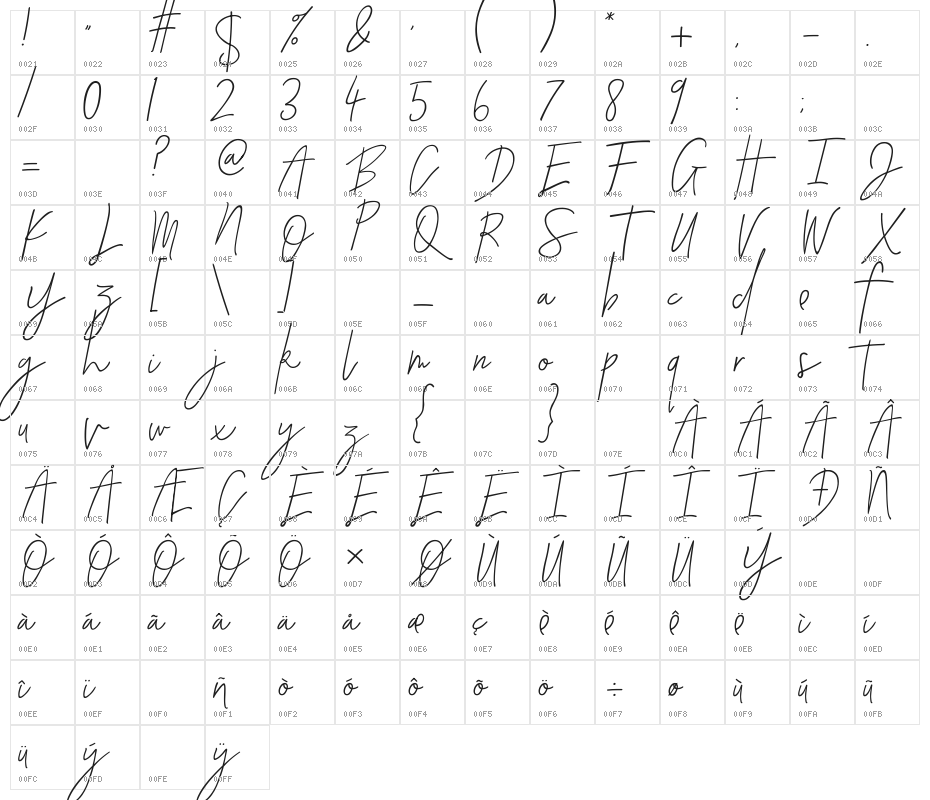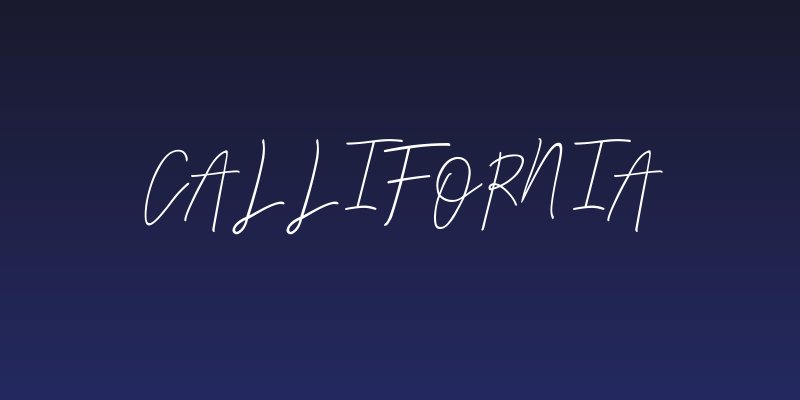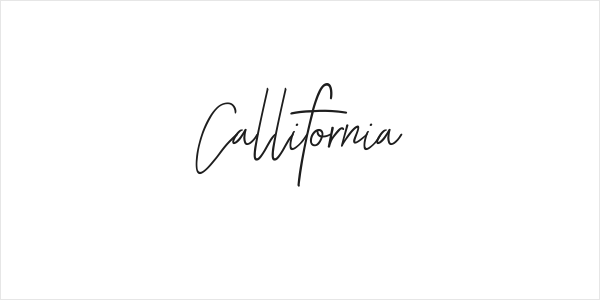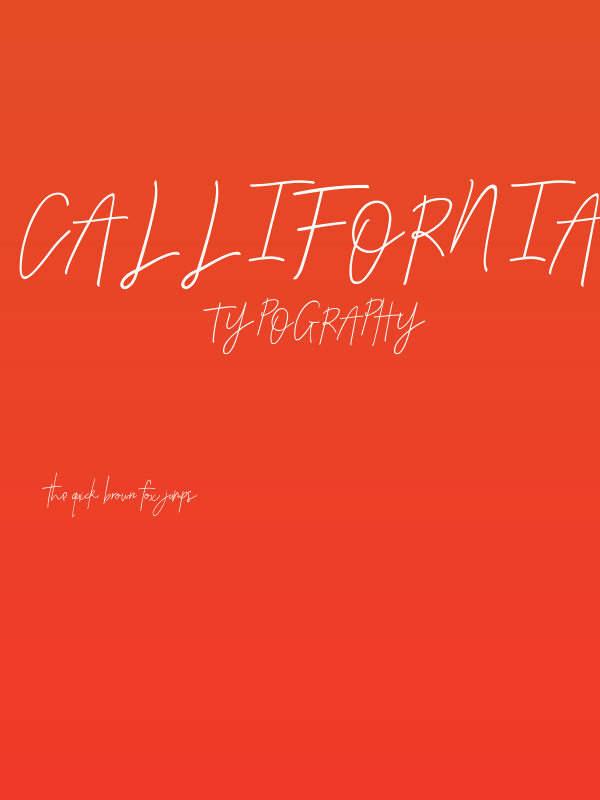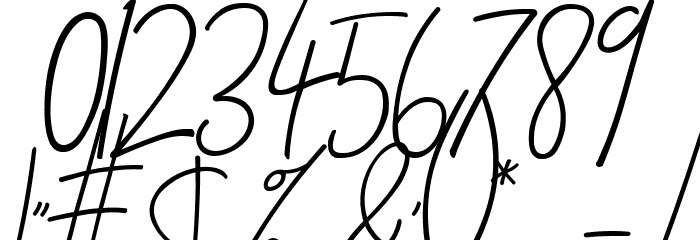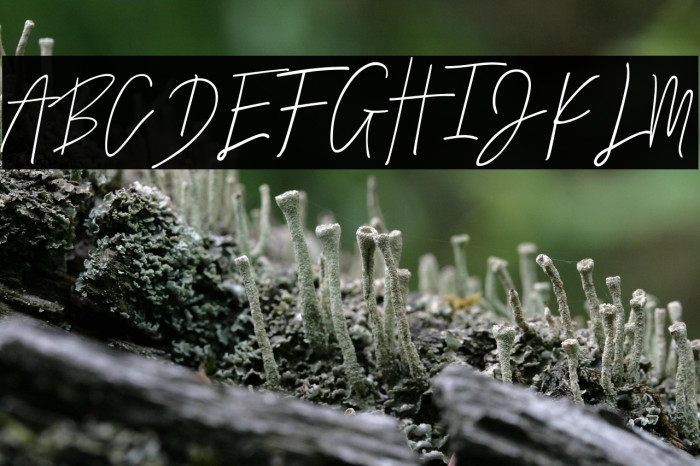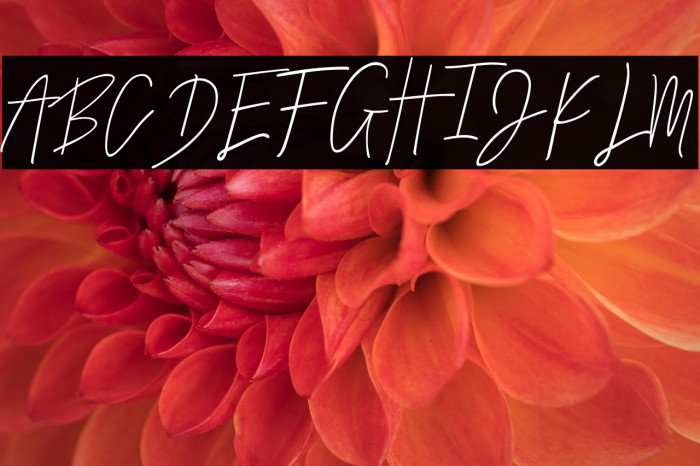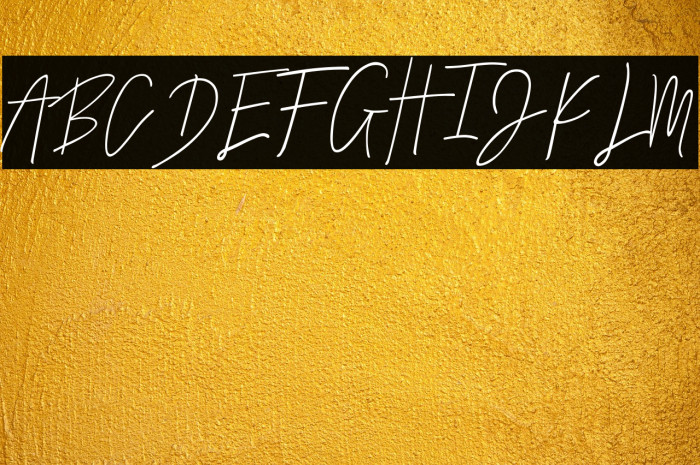
Callifornia Font
Callifornia Description
This font features a dynamic and expressive handwritten style, characterized by its fluid and cursive strokes. The letters are connected in a natural flow, giving it an authentic handwritten appearance. The uppercase letters are tall and slightly slanted, while the lowercase letters maintain a consistent rhythm with a playful touch. The numerals are distinct and maintain the same fluidity as the alphabet. Special characters are creatively integrated, enhancing the font's versatility. This font exudes a casual yet sophisticated vibe, making it suitable for various creative projects.
| Overall Style | Modern, Casual |
| Proposed Projects | Ideal for personal branding, invitations, greeting cards, and creative projects that require a personal touch. |